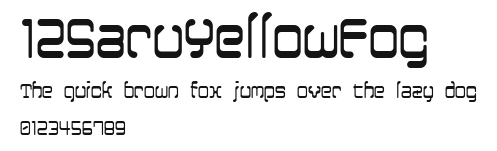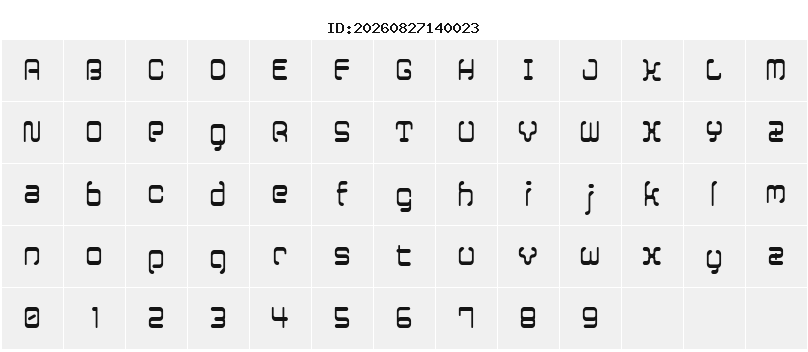
• Font Name: 12SaruYellowFog
About 12SaruYellowFog.ttf
12SaruYellowFog.ttf is a modern, elegant sans-serif font designed for ultimate readability and visual harmony. Perfect for branding, headlines, web design, and print materials.